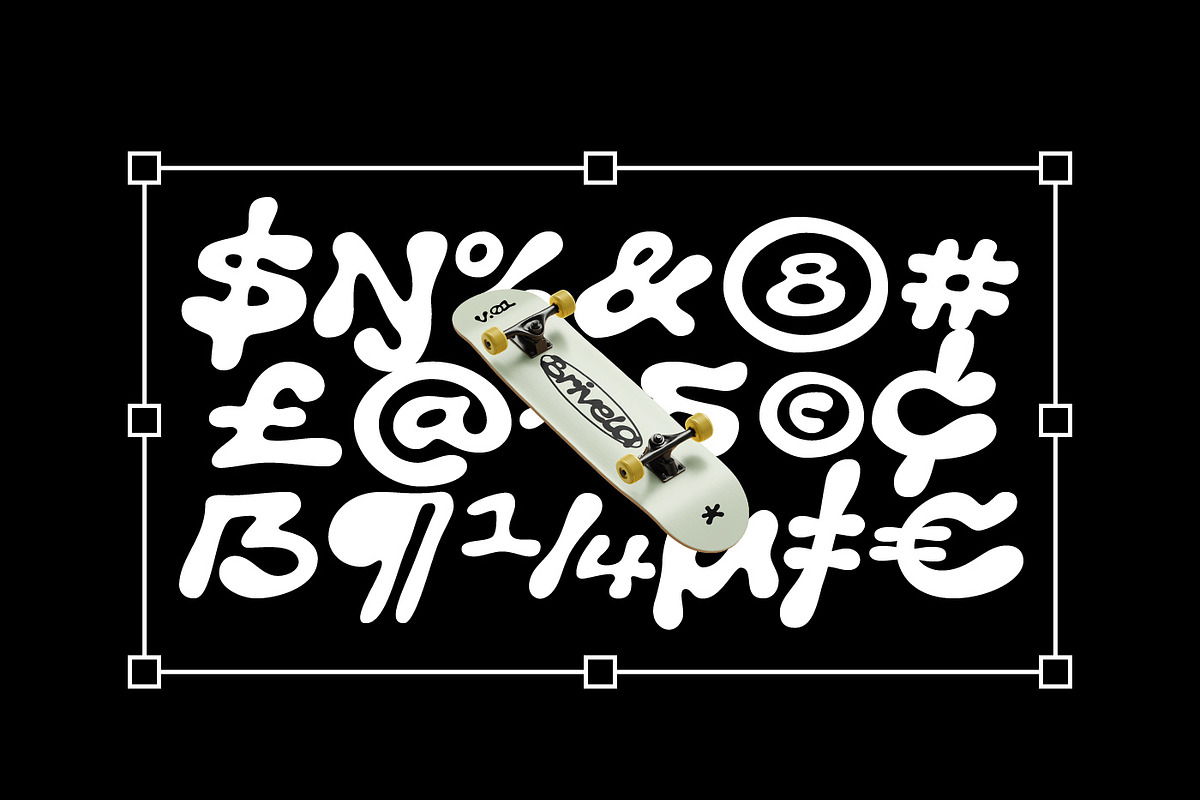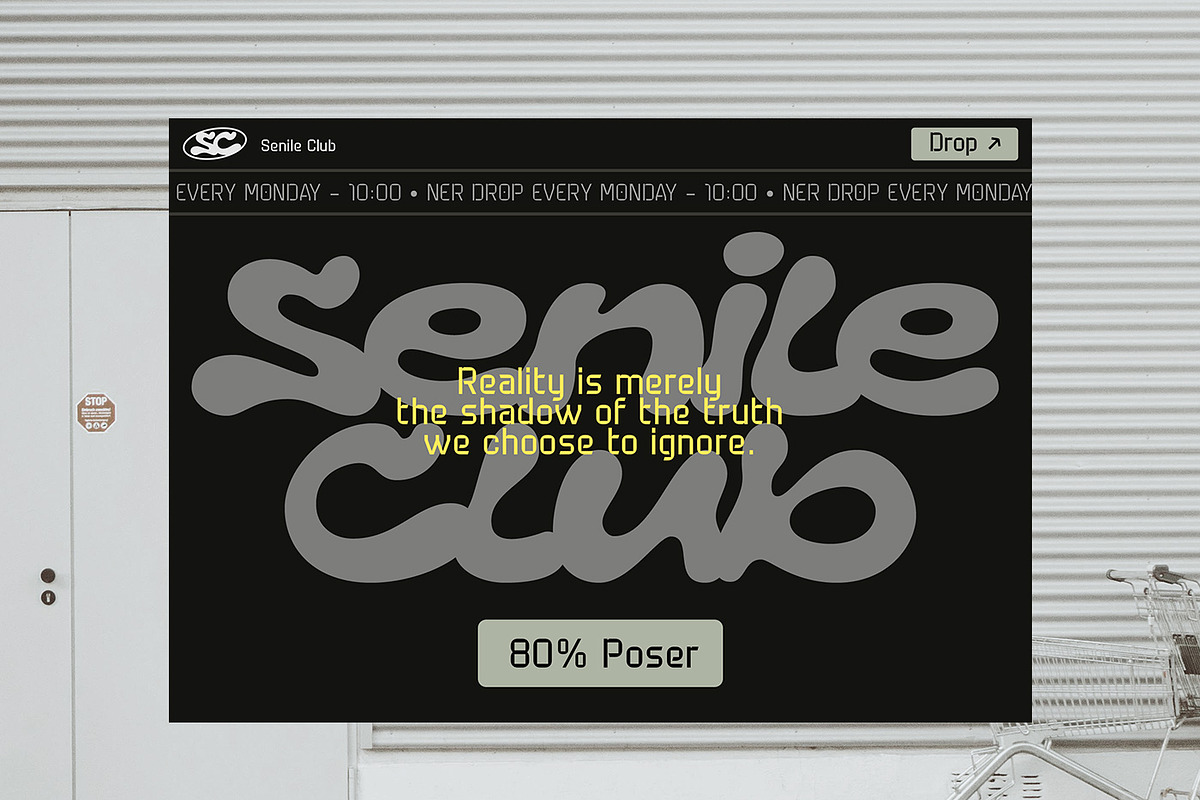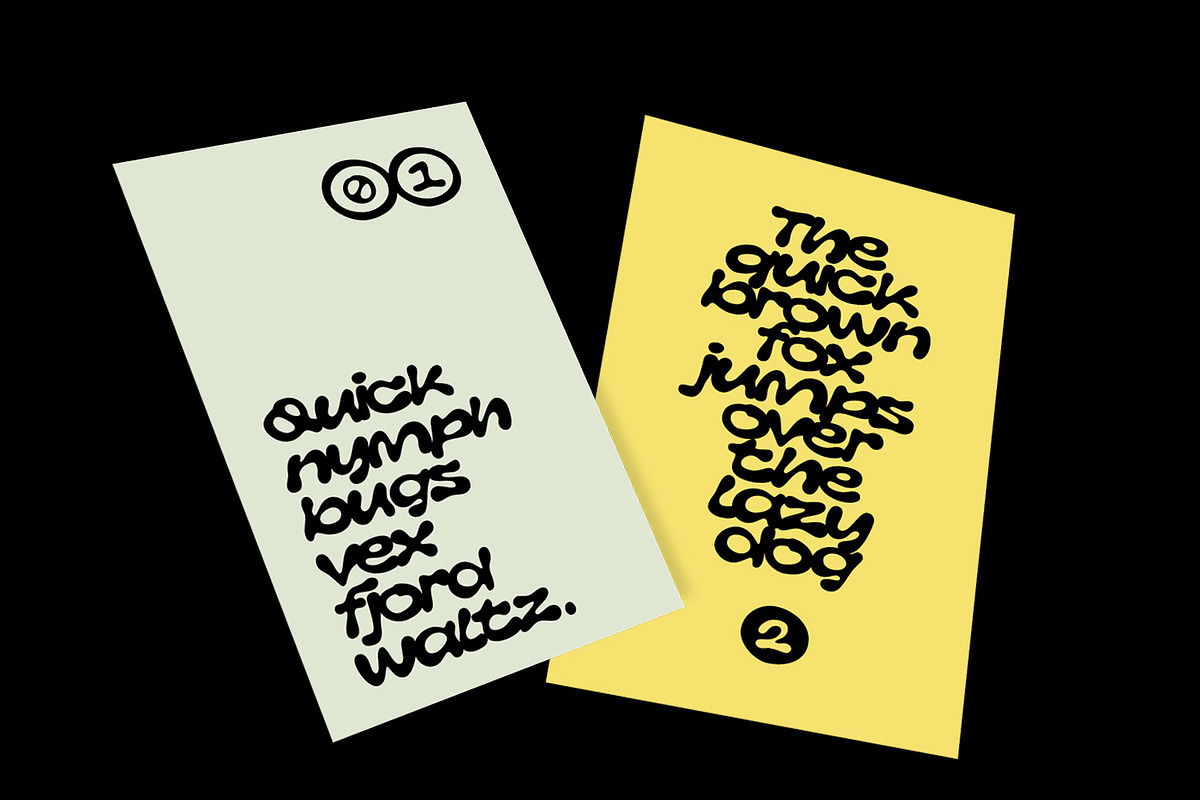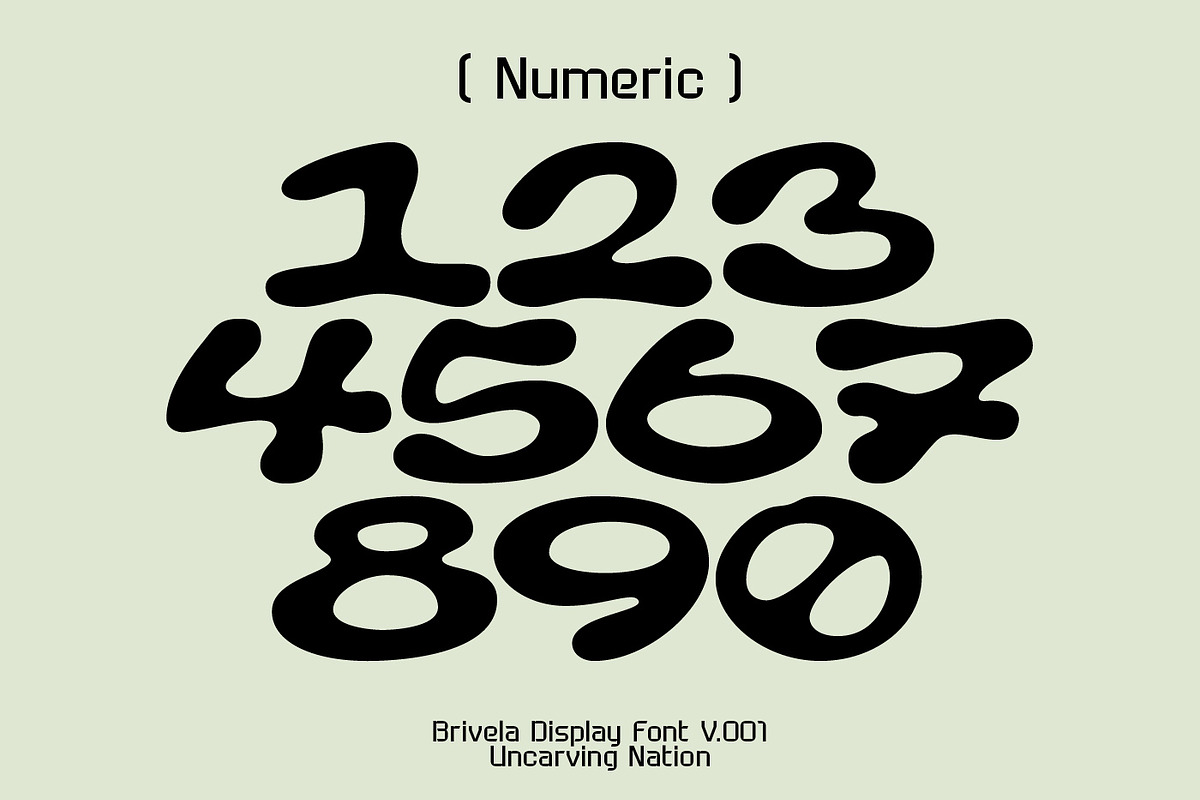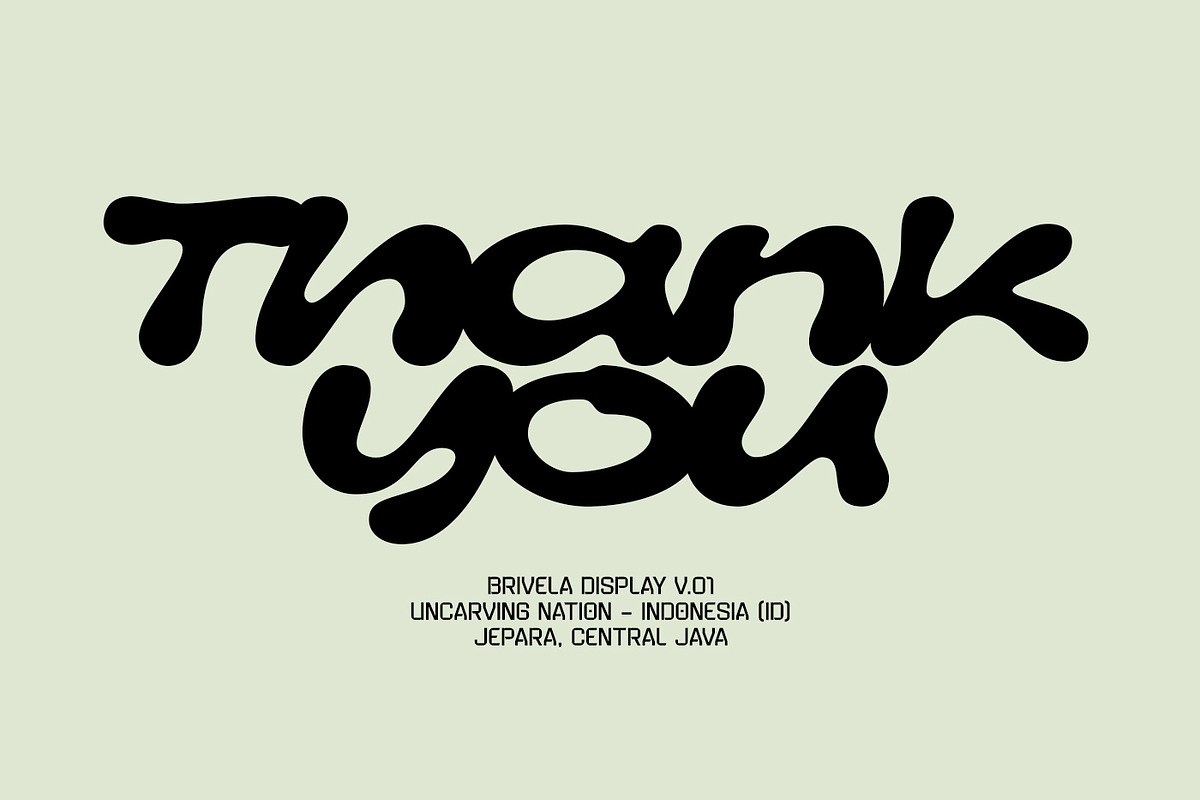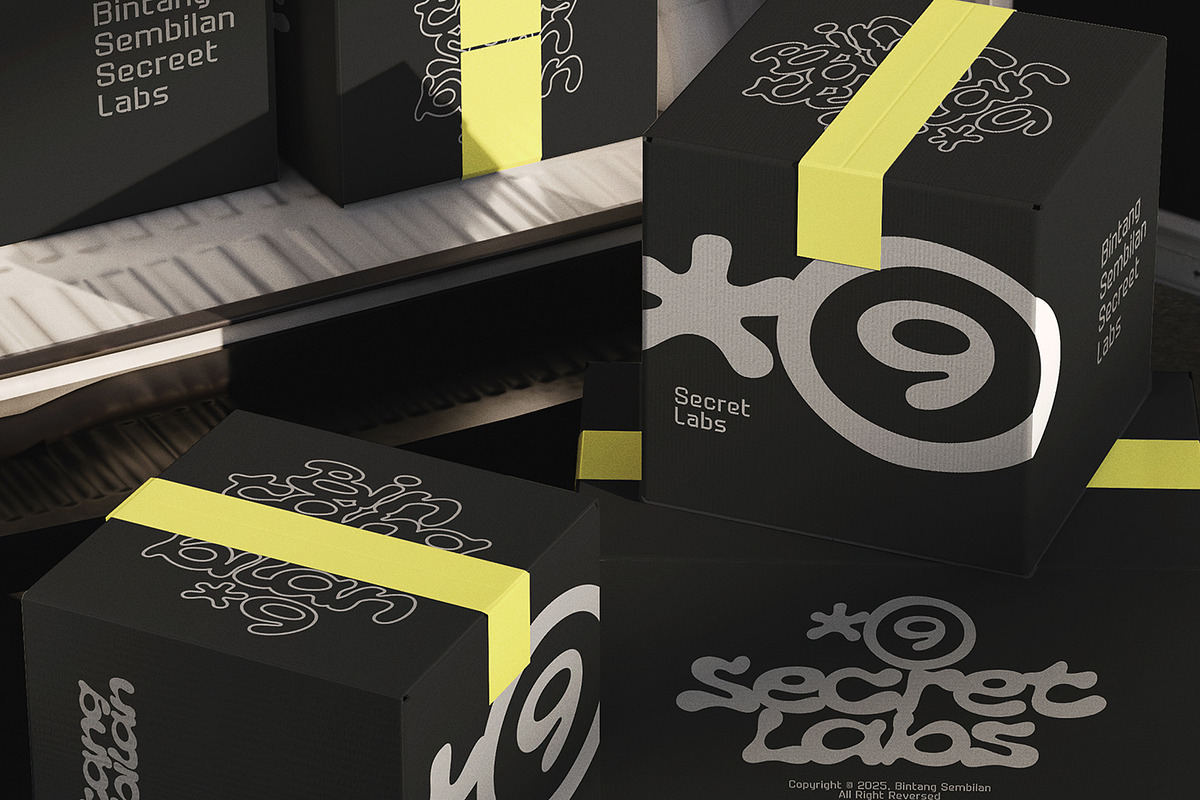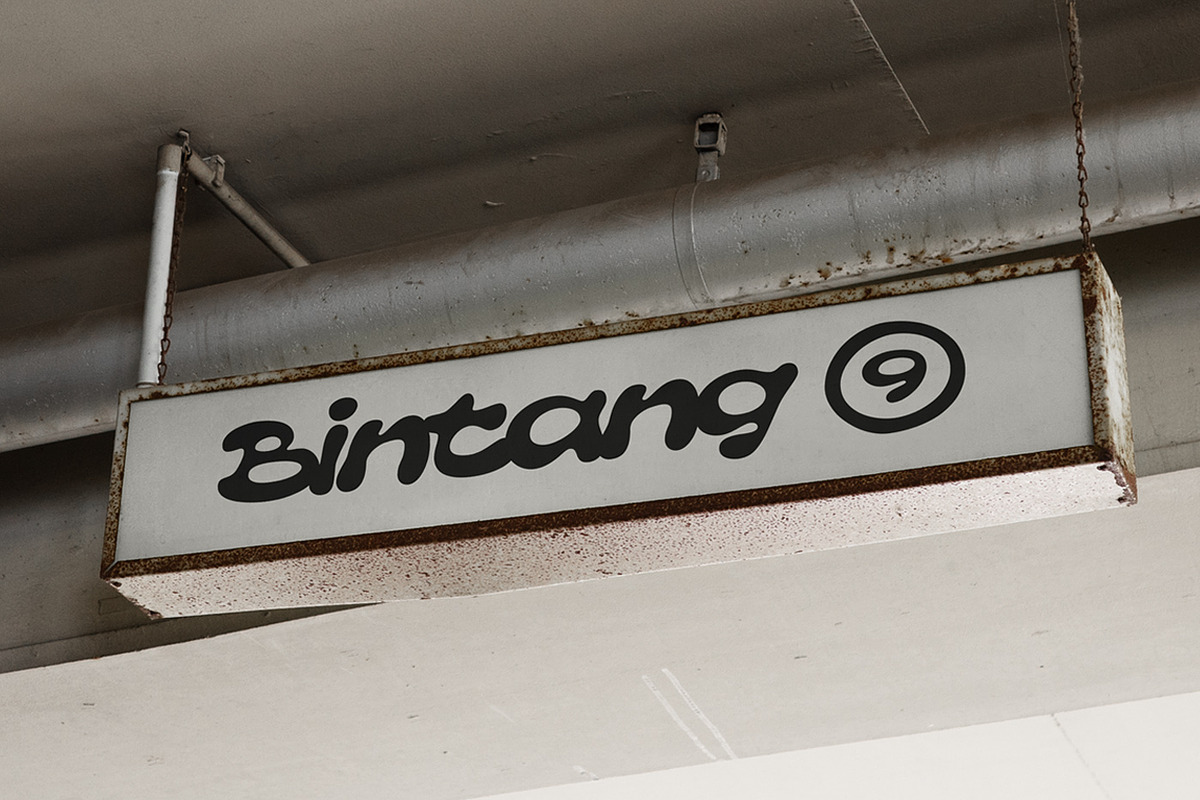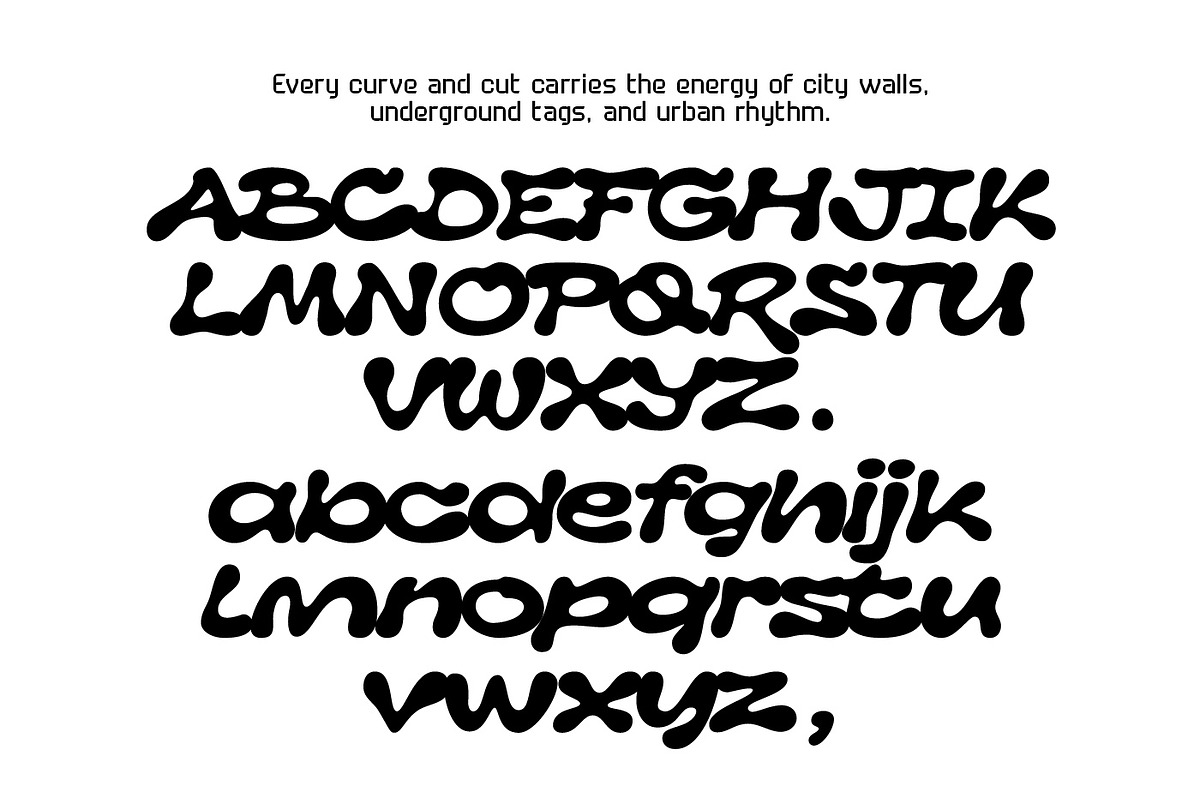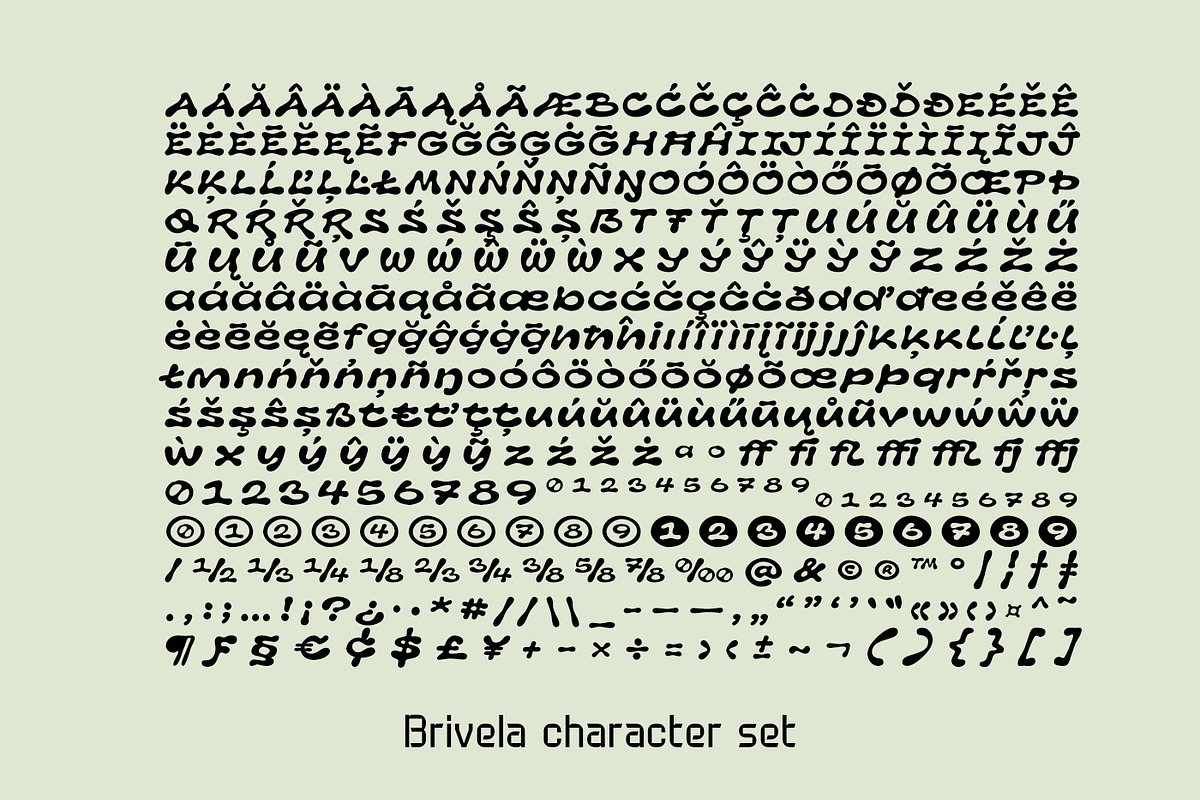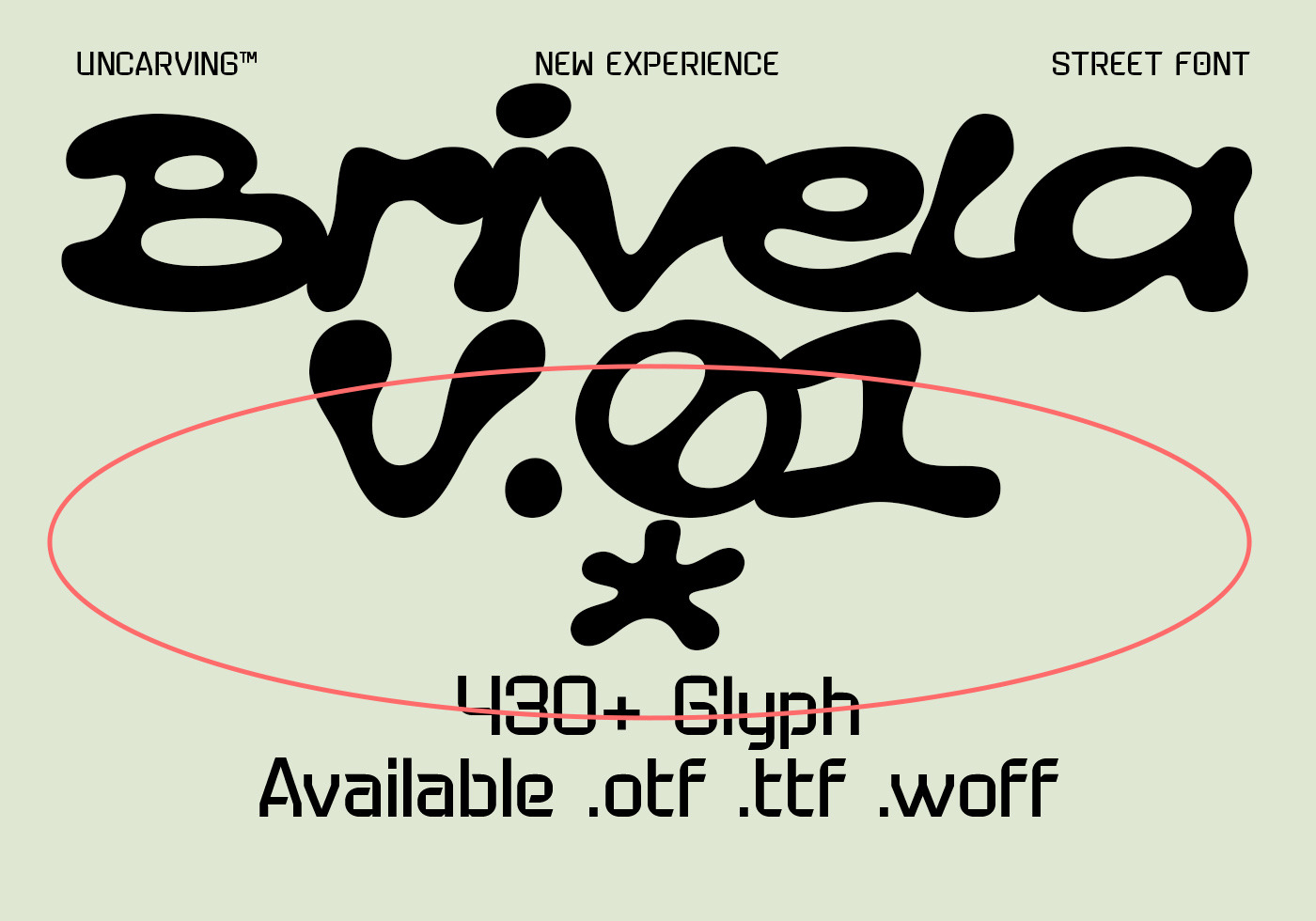
Brivela - Display Font
Brivela Display A loud, street-drippin’ font that straight up screams city vibes. It’s chunky, hand-sketched, and got that tagger flow, like walls hit with fresh paint. Whole thing oozes skate grit, late-night grind, and that raw, no-rules hustle energy.
Mad clutch for throwin’ on posters, album drops, tee fits, logos — basically any spot that needs that loud. Rock it in caps, lows, or numbers, keeps it tight and fly, lookin’ fire on screens or in print.
Offering street style and over 430+ characters, Brivela is a Raw and comprehensivechoice for modern typographic needs. Genesis can be used even for commercial, you may not share this font, neither on websites or to other computers, unless Uncarving permission is given.